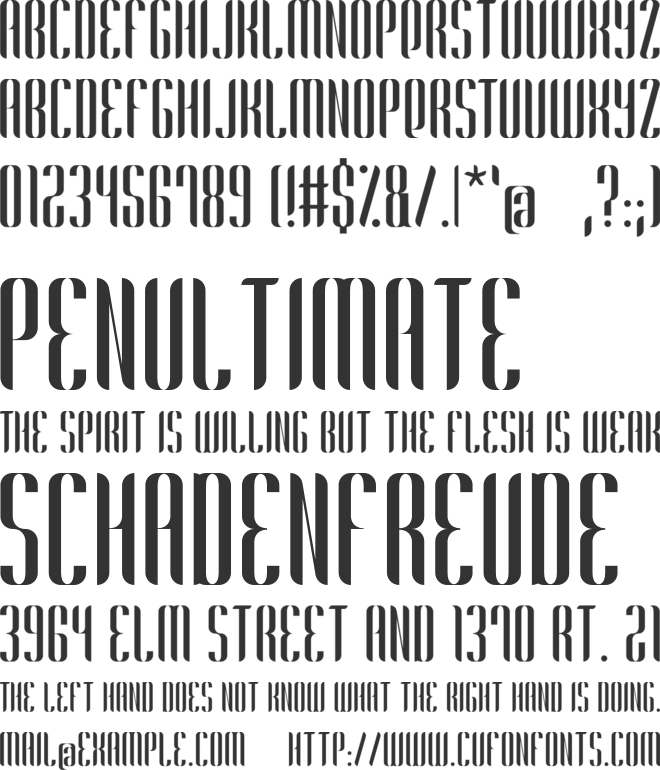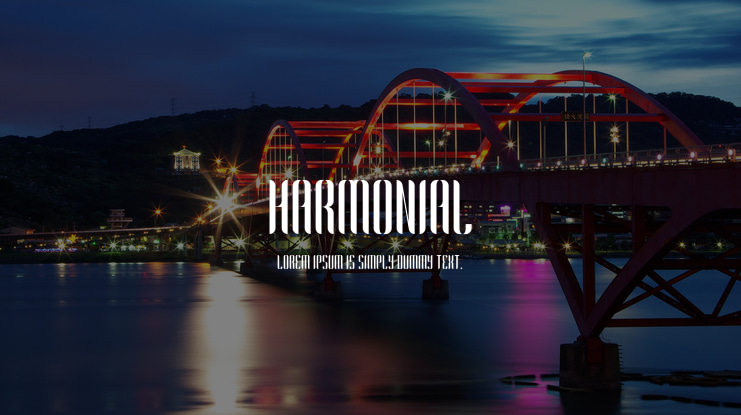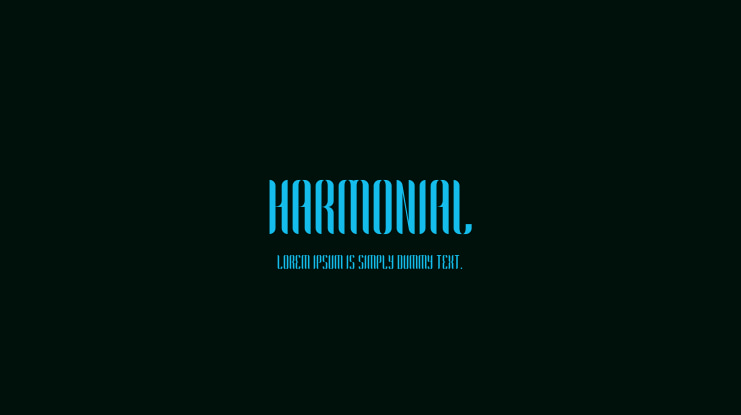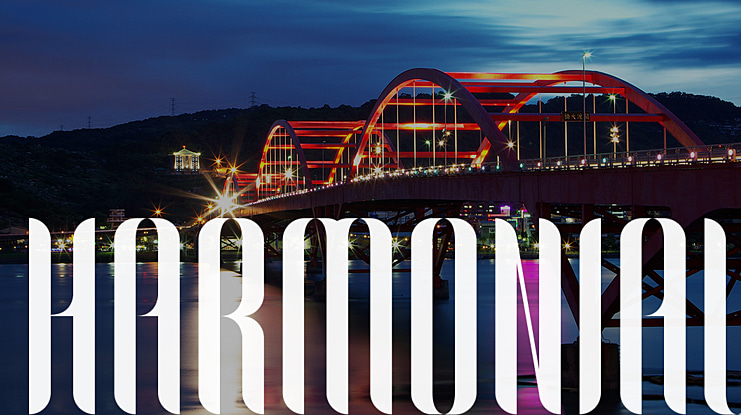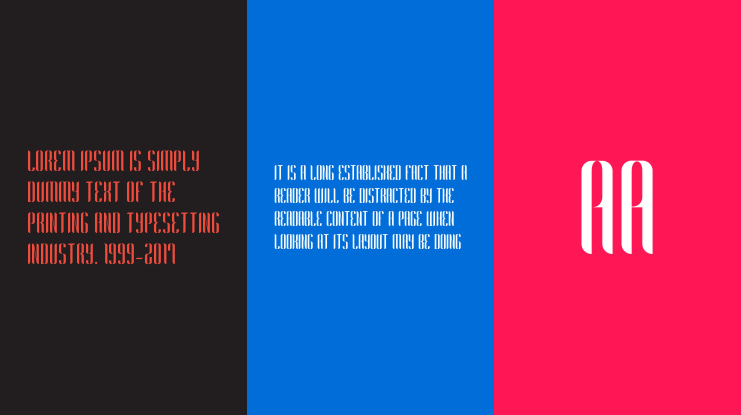
Harmonial Font
Introducing Harmonial - Sans Serif Font
Harmonial is an elegant and clean sans serif font. It's a versatile font family designed for strong, classic branding. Harmonial works great in any branding, logos, magazines, videos, product packaging, website headers, clothing designs and much more.